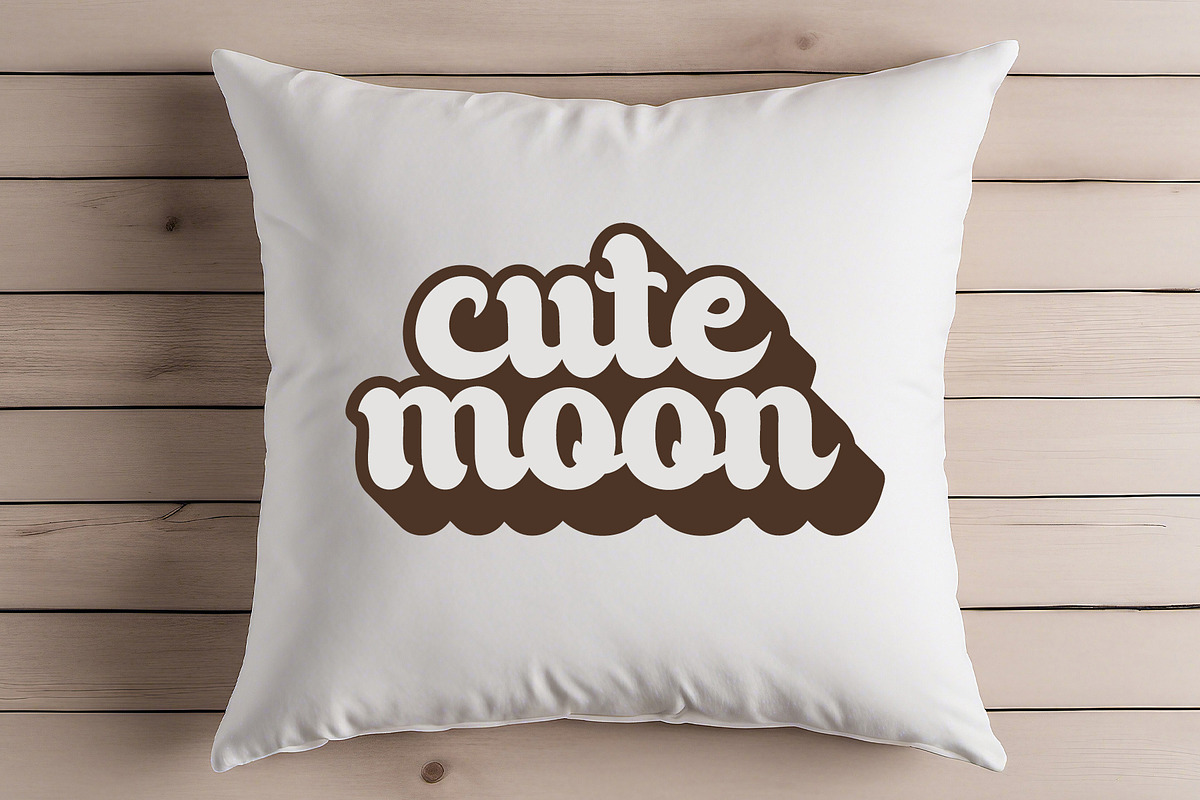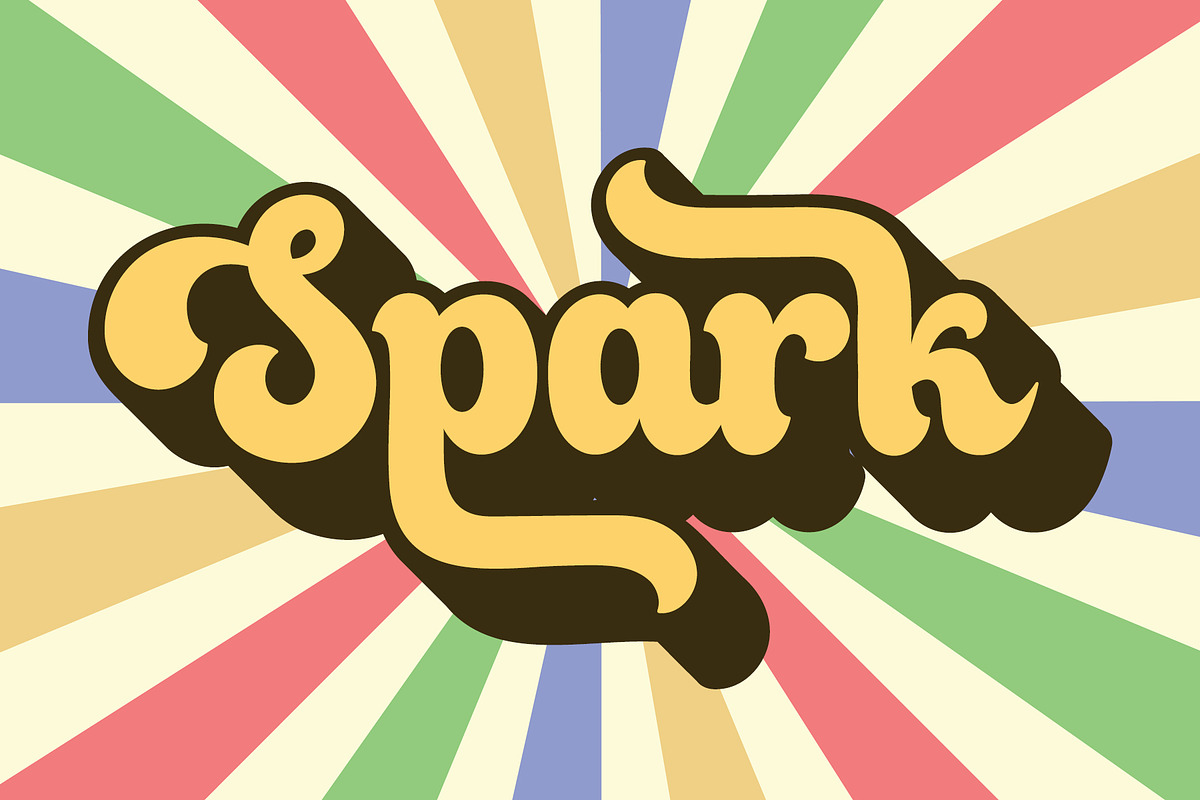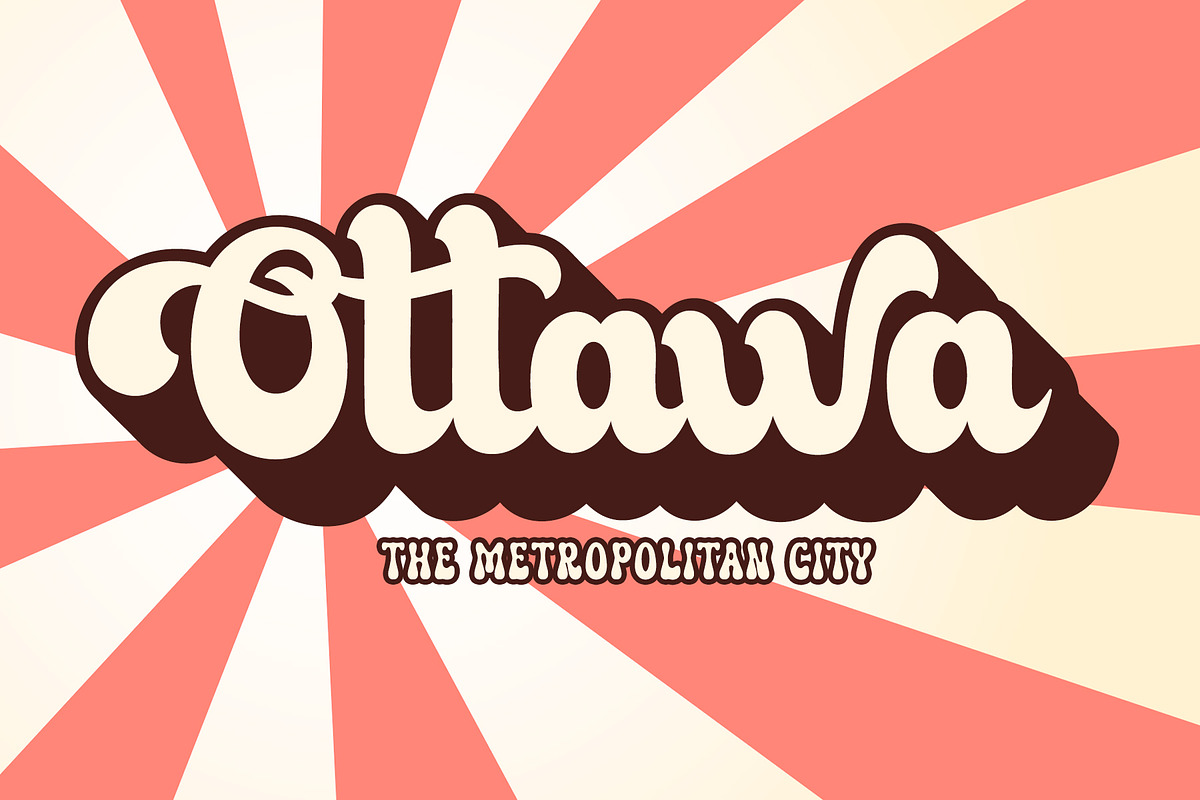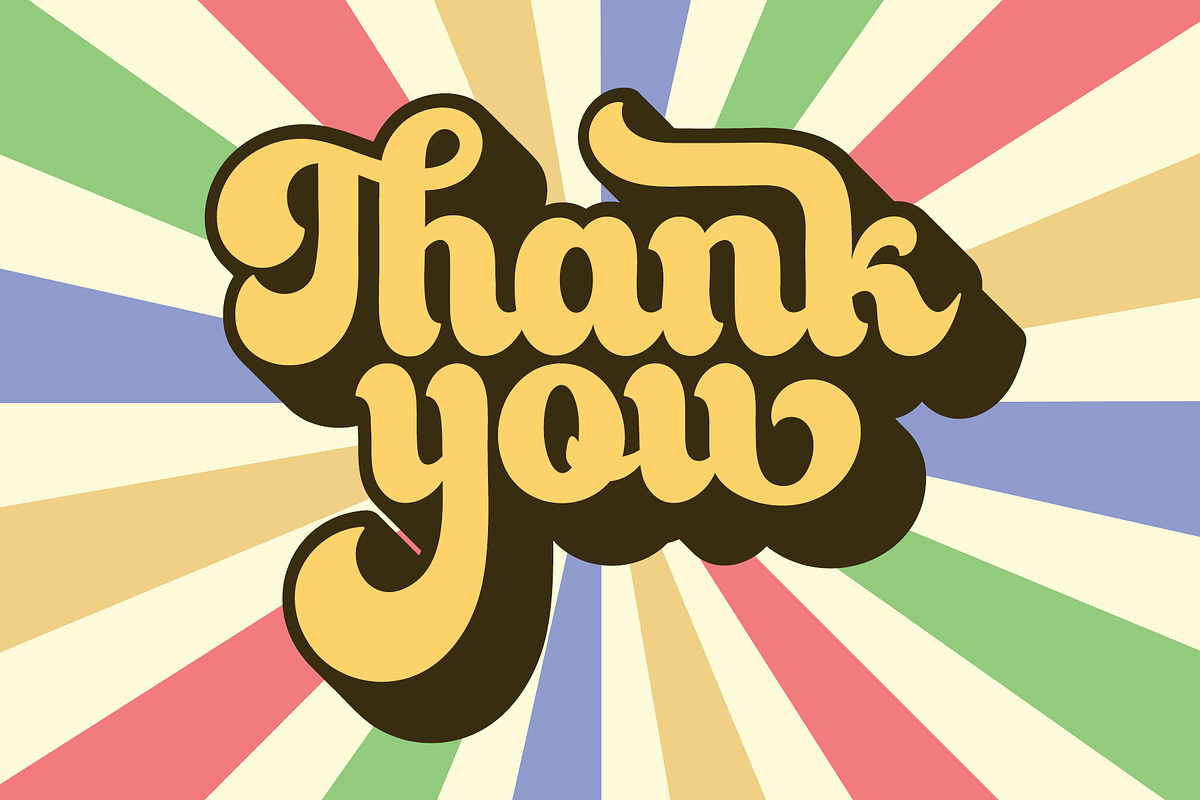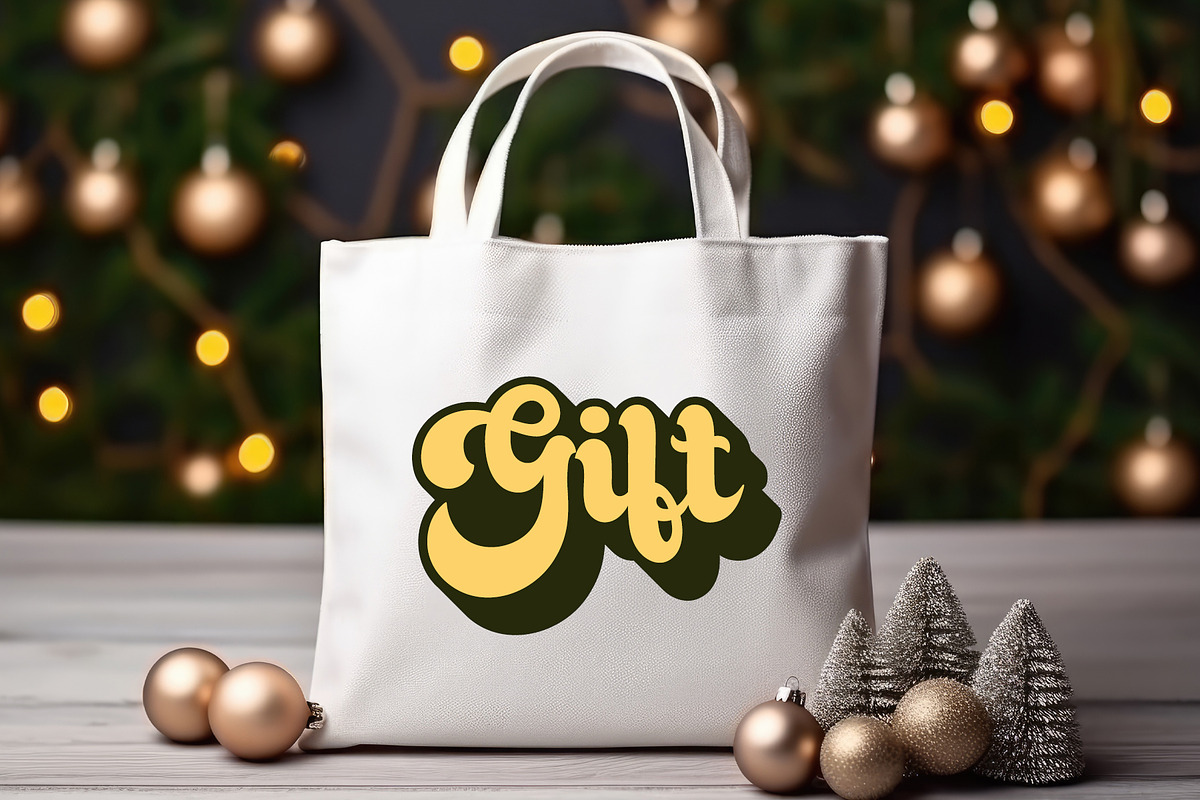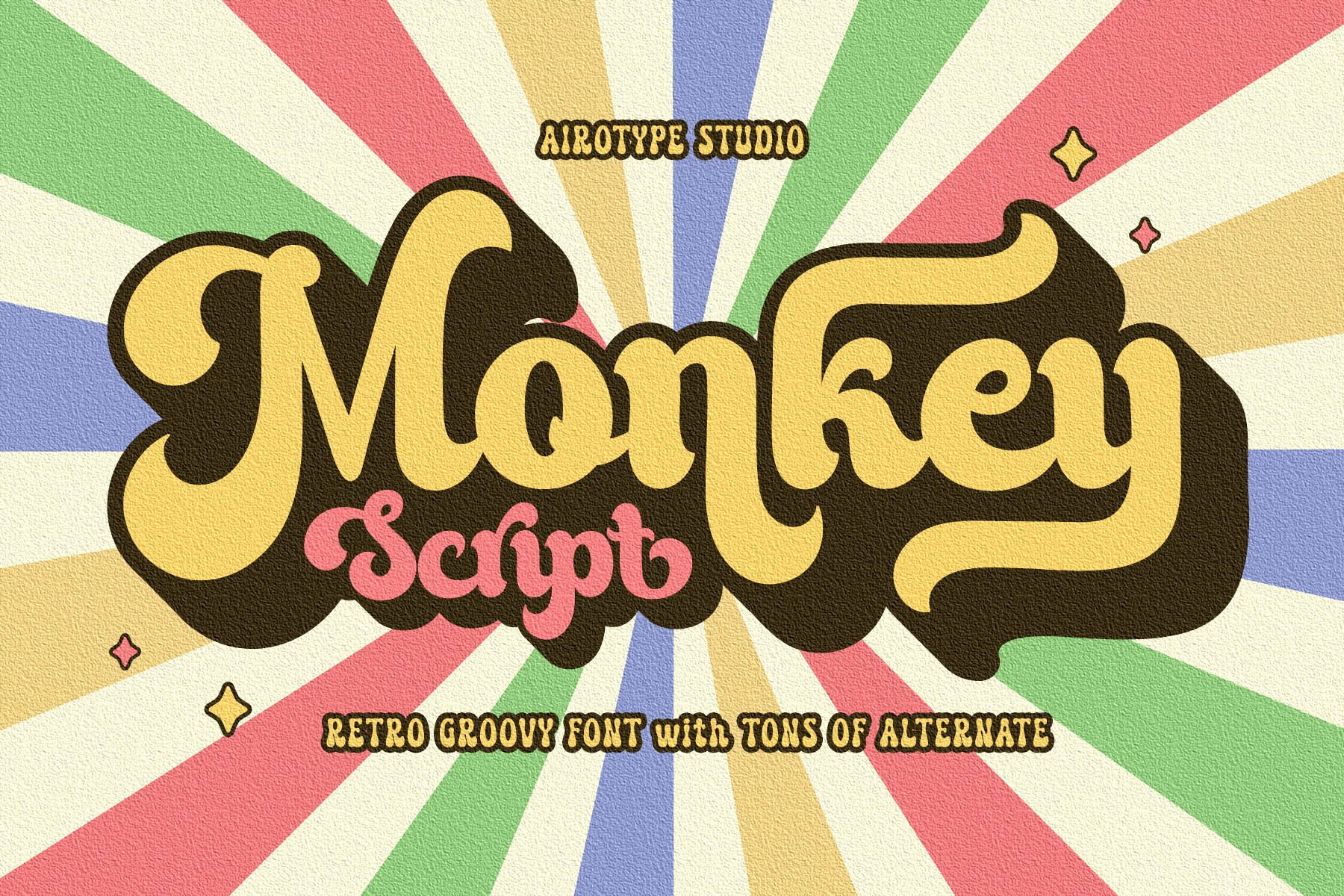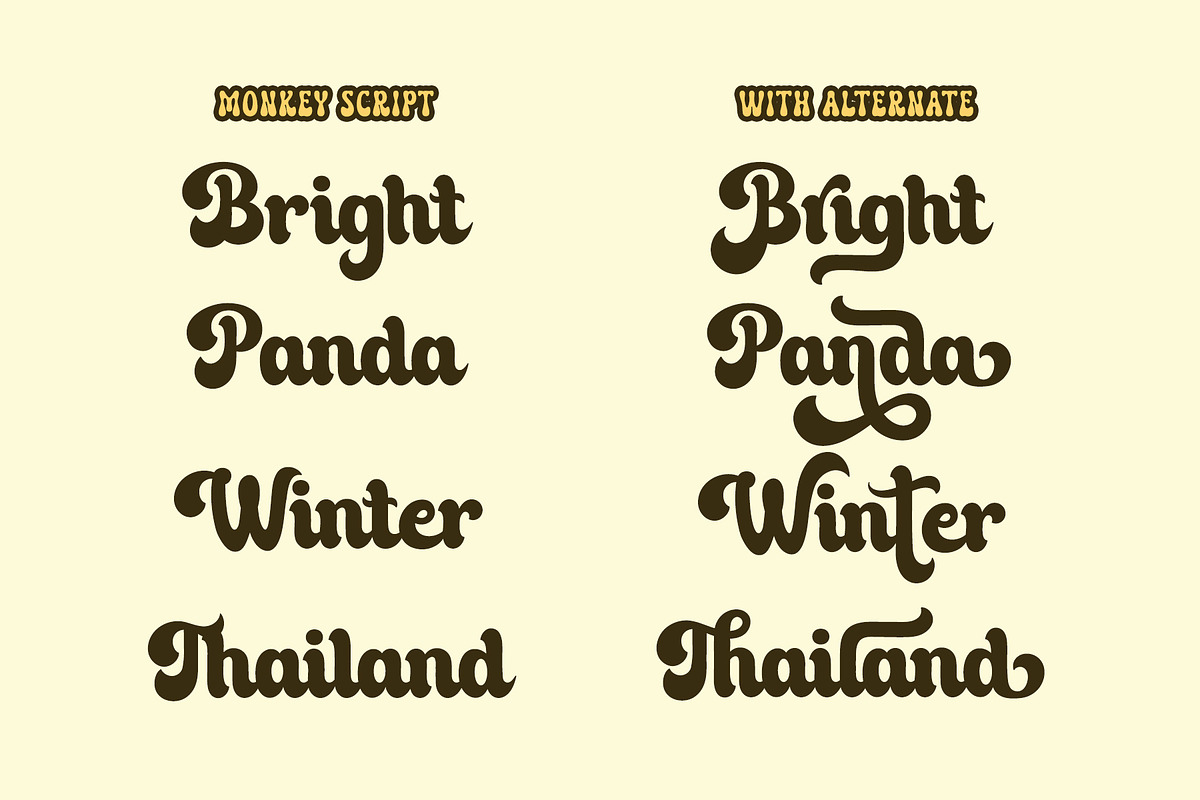
Monkey Script - Groovy Retro Font
Monkey Script is retro font with nostalgic and vintage feeling. This is bold, fancy, and delivering playful vibes.
Monkey Script has tons of alternate glyphs (extra characters). It can be accessed with Font Book (Mac) or Character Map UWP (PC). Make sure you know how to access extra glyphs in the program you are using.
It also has extrude style to give shadow or layer for the regular one.
This font is pretty choice for any projects, especially with vintage and groovy style, such as logo, crafting, branding, sticker, sublimation, quotes, and many more.